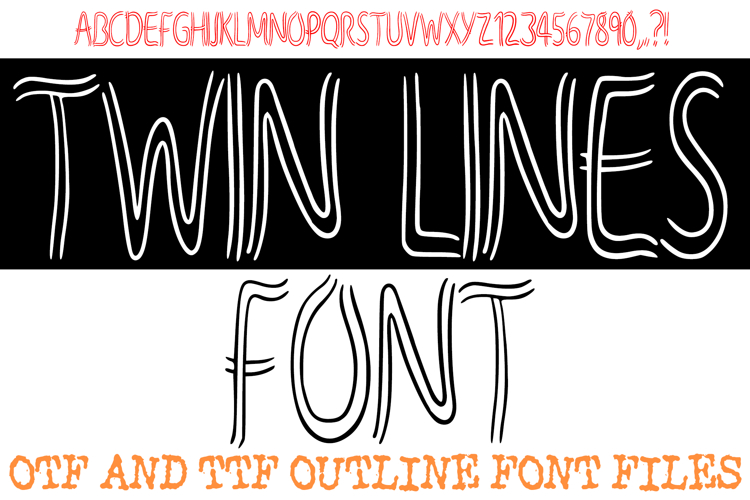
Twin Lines Font Duo Letters Parallel Alphabet ABC Text OTF
Elevate your design aesthetic with the Twin Lines Font! This sophisticated display typeface features clean, hand-drawn characters formed by two thin, parallel lines. Its minimalist "wire-frame" look provides a modern and airy feel, making it the perfect choice for high-end branding, trendy social media graphics, and contemporary home decor.
The organic, slightly wobbling outlines give each letter a charming "doodle" personality that balances professional minimalism with a handcrafted touch. Whether you are designing elegant wedding stationery, minimalist classroom resources, or stylish labels, the Twin Lines Font adds a unique, architectural layer to your typography.
Modern Parallel Design: Every letter (A-Z) and number (0-9) is meticulously crafted with a signature double-stroke effect.
Versatile Minimalism: The thin, tall letterforms work beautifully for both subtle accents and statement headers.
Hand-Drawn Authenticity: Features a natural "pencil-to-paper" feel that adds warmth to digital designs.
Clean & Crisp: The open design ensures legibility while maintaining a light, artistic footprint on the page.